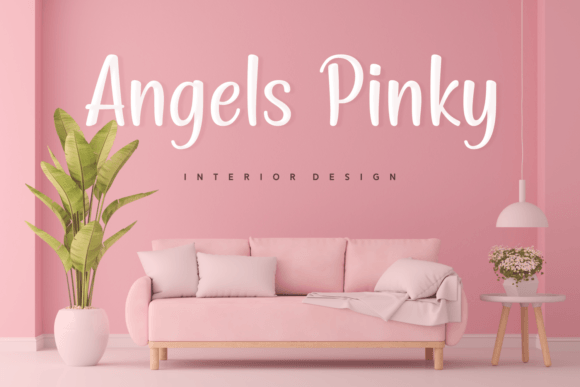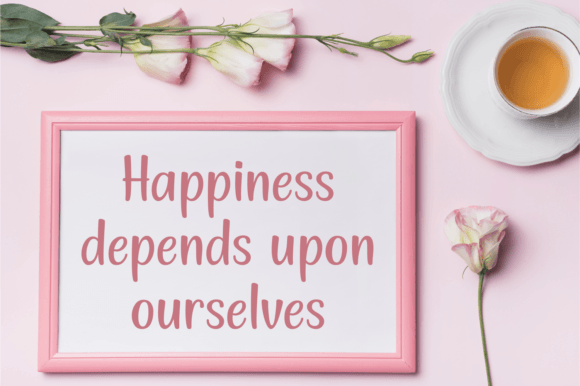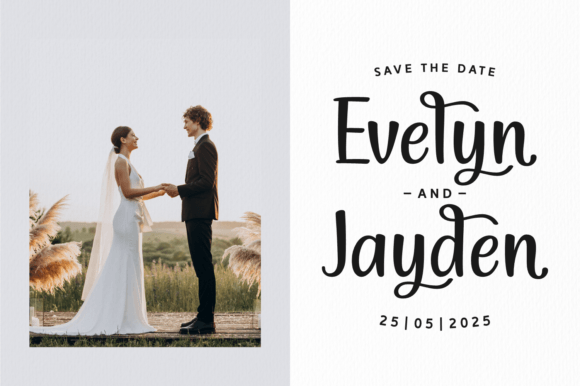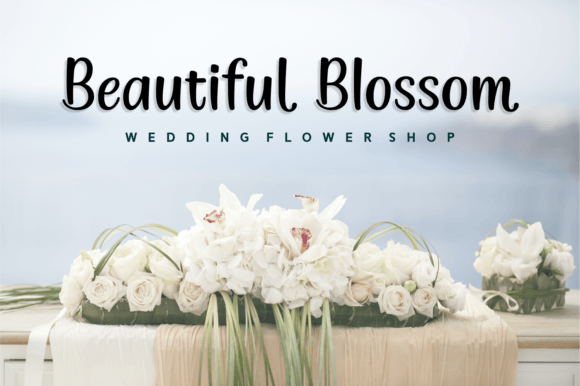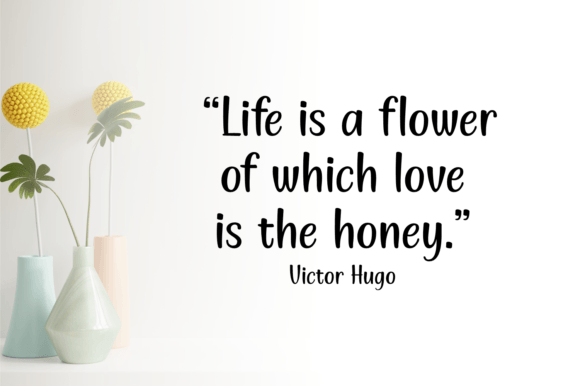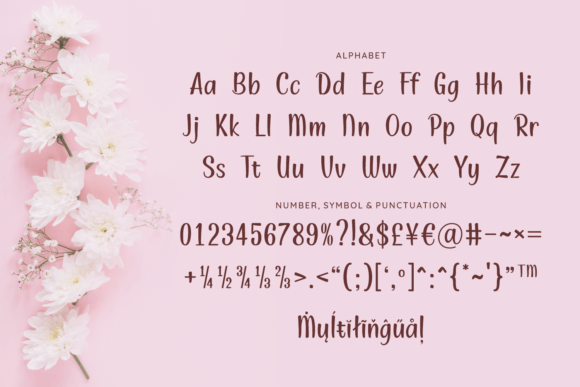
Introduction to Lusiya Font
Have you ever found yourself stuck on a creative project, longing for the perfect font to bring it all together? For me, that moment came when I was designing a birthday card for my little sister. I wanted it to be extra special, but the right words just weren’t coming together. That’s when I stumbled upon the Lusiya Font – a girly and cute handwritten font that added a touch of magic to my design.
As designers, we’re always on the lookout for high-quality design resources that can elevate our work and make it truly stand out. The Lusiya Font is a valuable addition to any designer’s toolkit, offering a free download that’s perfect for creative projects with a transparent background. Whether you’re working on a children’s book, a wedding invitation, or a social media graphic, this lovely typeface is sure to add a sweet and playful accent to your design.
Key Features of Lusiya Font
- High-quality font design suitable for creative projects, including logos, branding, and other design resources.
- Designed for use in various creative projects, including digital art, graphic design, and typography-based art.
- Easy to use and customize, making it an ideal design resource for both beginners and experienced designers.
Honest Review: Lusiya Font
As a designer, I’m always on the lookout for high-quality fonts that can elevate my creative projects. Recently, I stumbled upon the Lusiya Font, and I’m excited to share my honest review with you.
- ✨ High-quality design: The Lusiya Font boasts a beautiful, modern design that’s perfect for any creative project.
- ⚠️ Limited character set: The Lusiya Font only comes with a limited character set, which may not be ideal for long-form text or complex projects.
- ⚠️ Not suitable for body text: While the font is great for headlines and titles, it may not be the best choice for body text due to its unique design.
Overall, I’m impressed with the Lusiya Font’s design and functionality. While it may have some limitations, it’s an excellent resource for designers who need a high-quality, free font for their creative projects.
Tips for Getting the Most Out of Lusiya Font
Experiment with different font sizes, colors, and combinations to achieve the desired effect. Use the Lusiya Font in conjunction with other design elements, such as images and shapes, to create visually appealing designs.
The Lusiya Font is ideal for a variety of creative projects, including social media graphics, posters, logos, icons, presentations, reports, and documents. Its high-quality design and transparent background make it a versatile resource for designers and non-designers alike.
Can I use the Lusiya Font on a design with a transparent background?
Yes, the Lusiya Font is designed to be highly legible on both colored and transparent backgrounds. Its clear, crisp lines and well-balanced design make it an excellent choice for creative projects that require a clean, modern aesthetic.